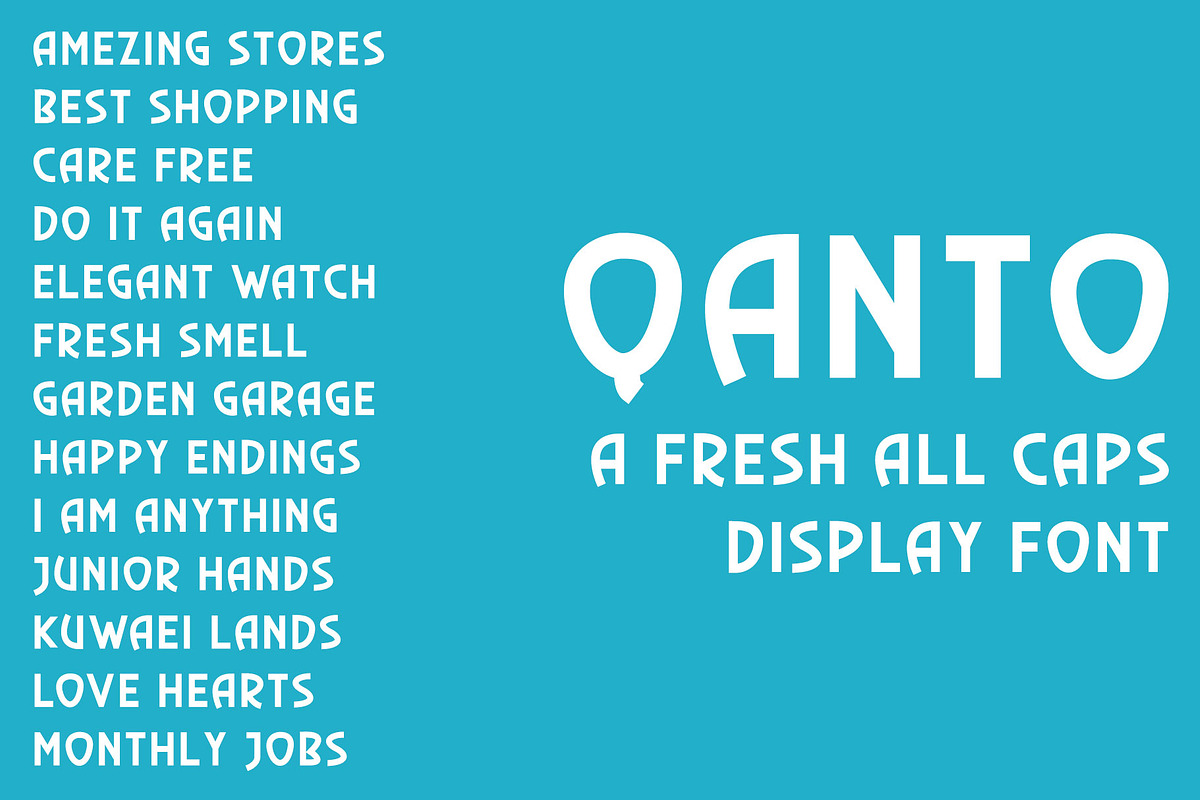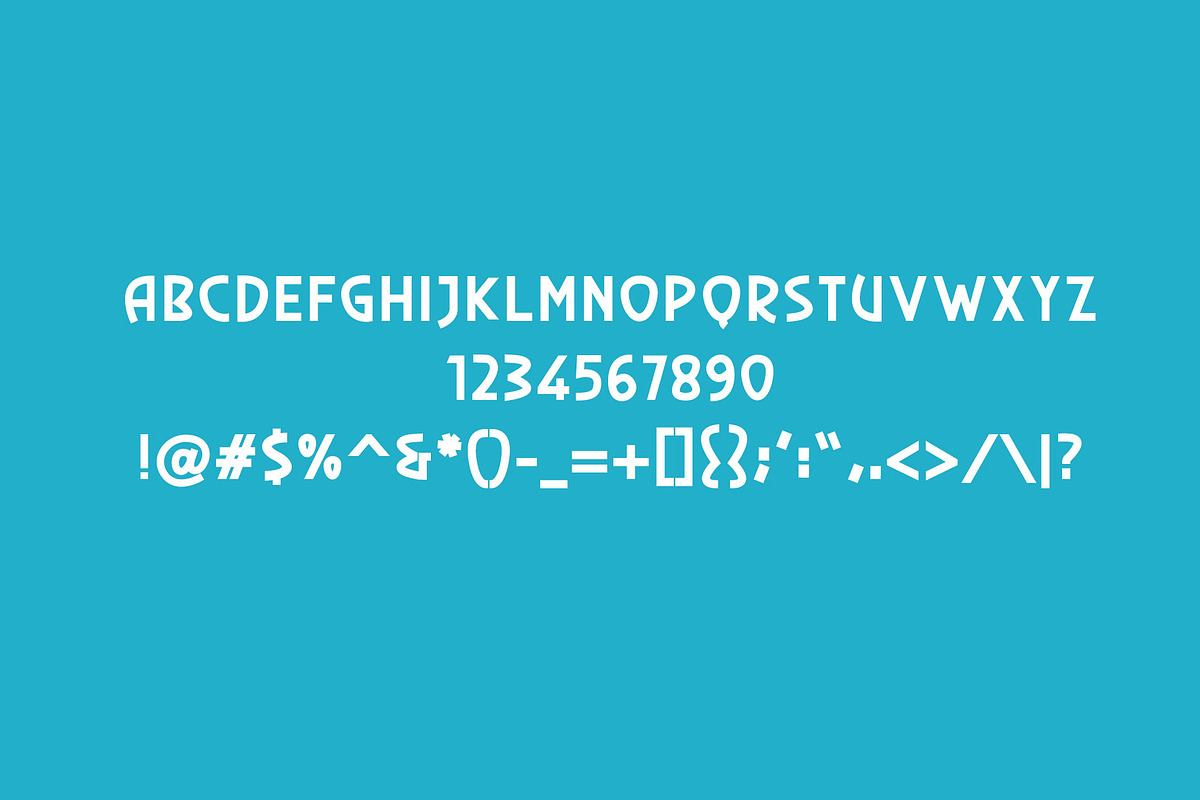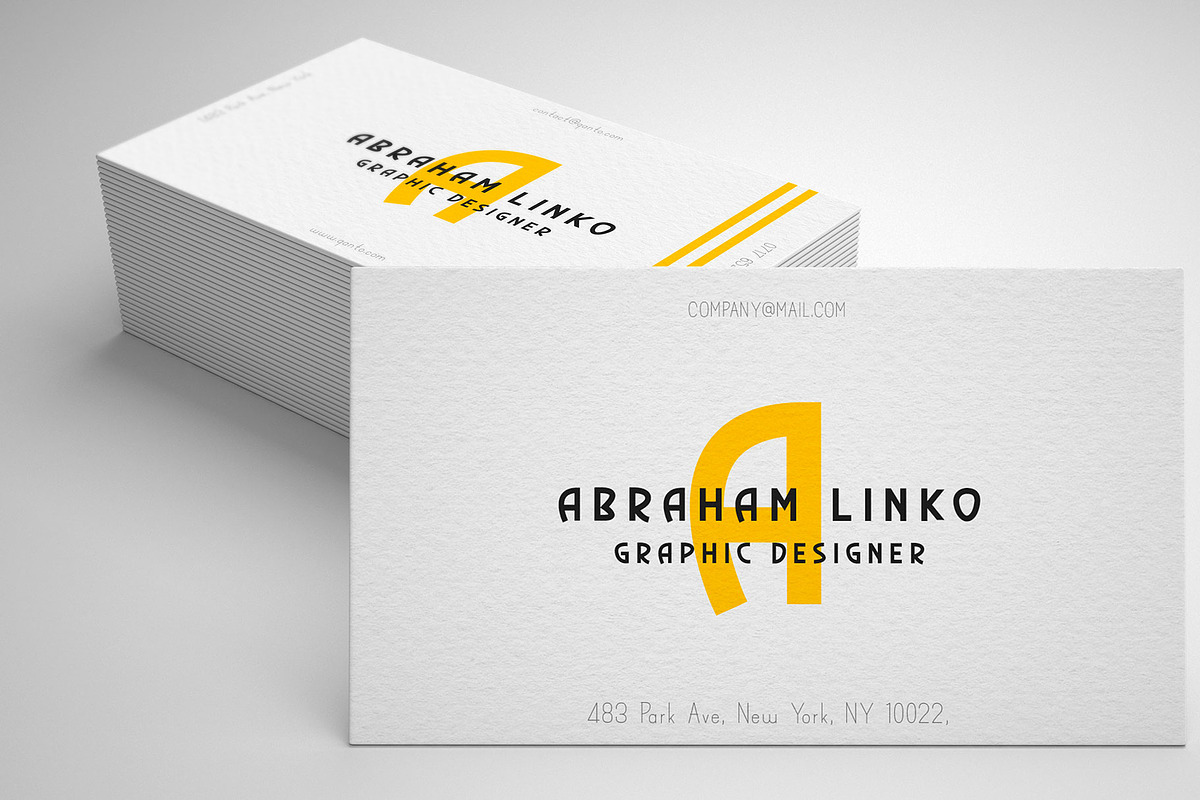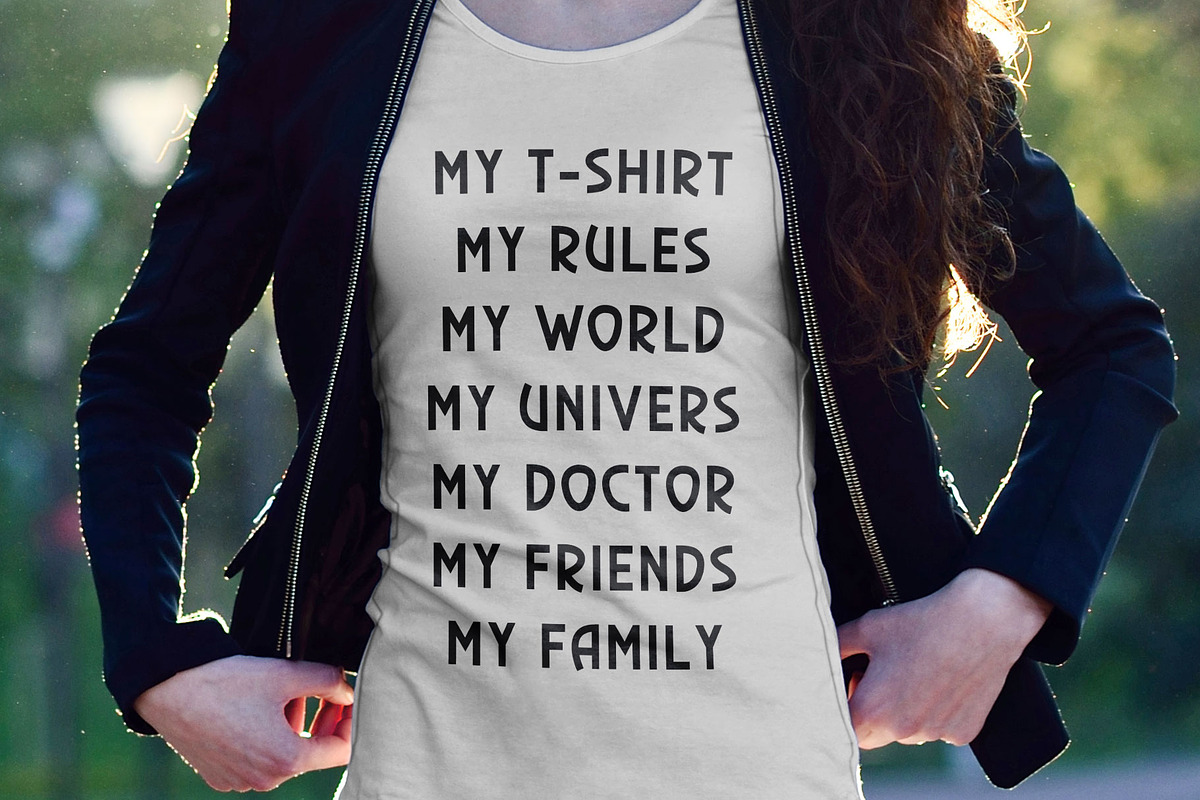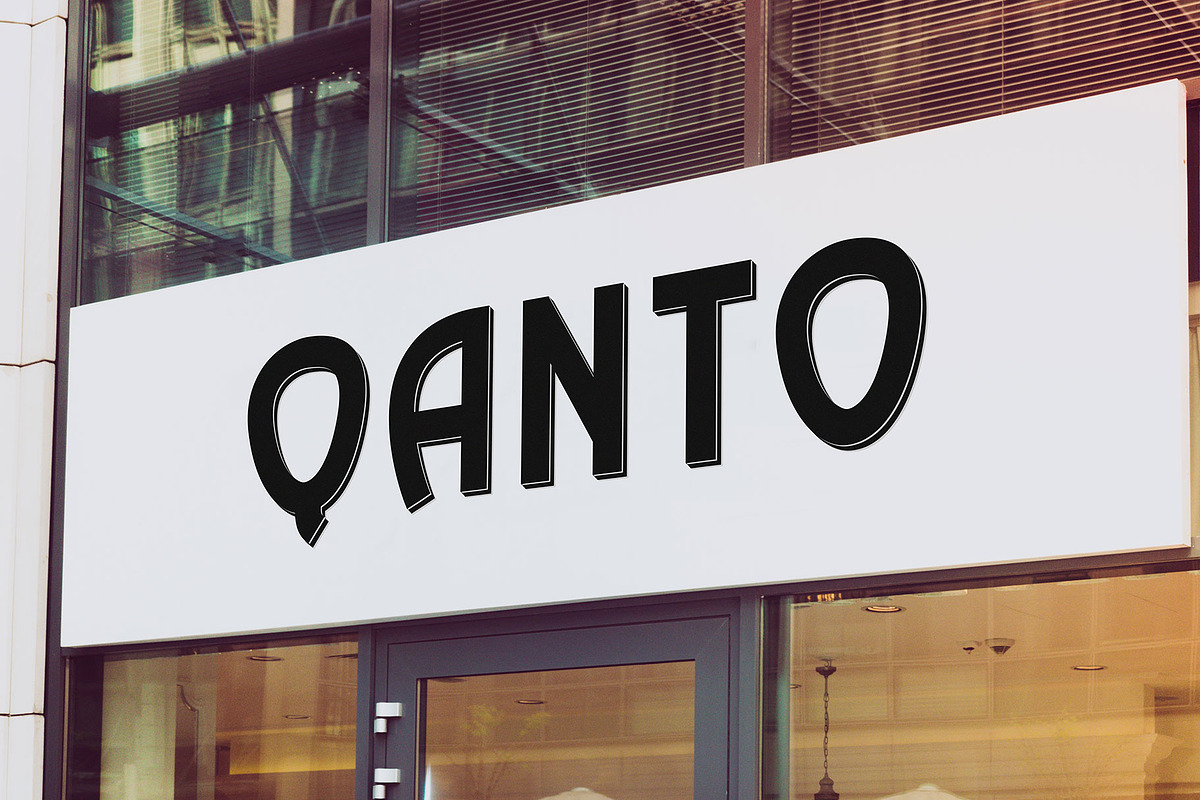
Qanto - Display Font
A Fresh Clean Display Font, Specially Fits for Branding and Out Door Adverting use.
All Caps Display Font.
All Capital letters, numbers, and punctuation’s.
Minimal Style Display Font.
Best Used for Titles, Branding, Out Door Advertising..